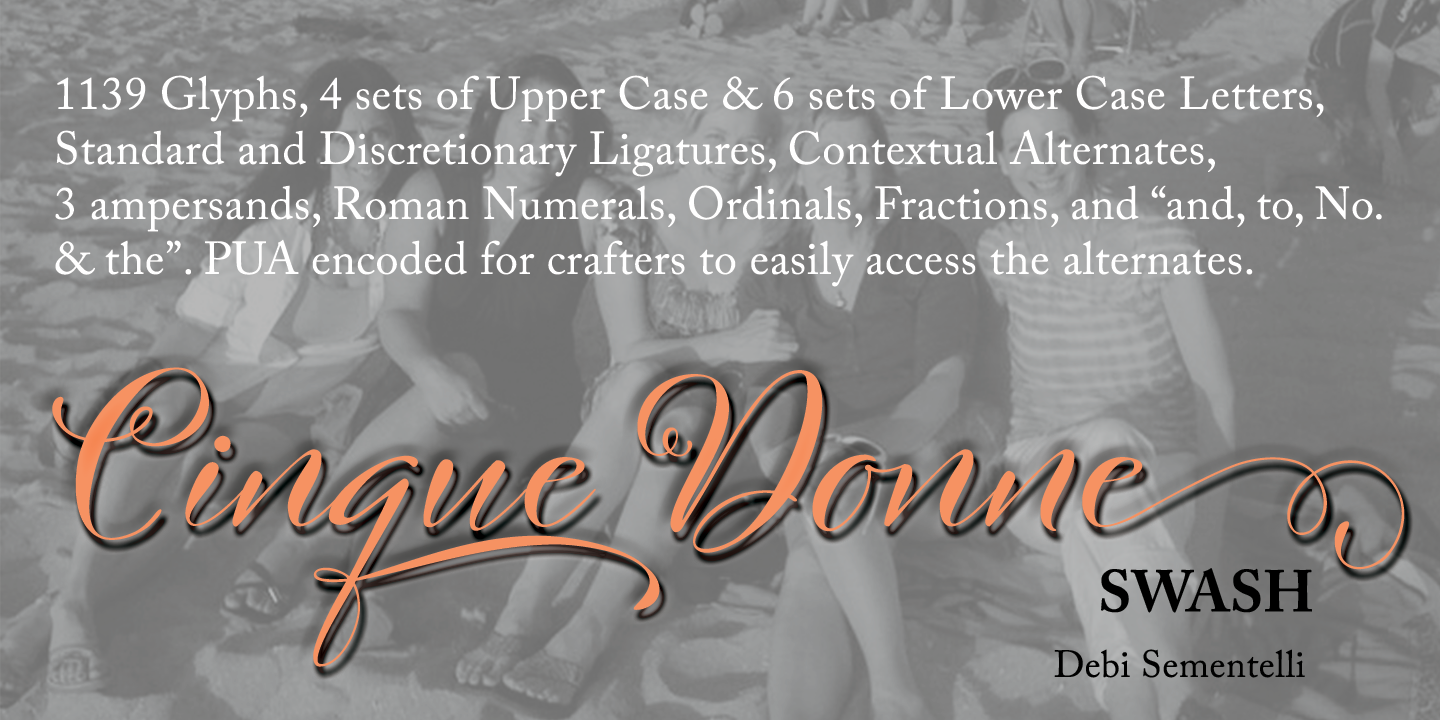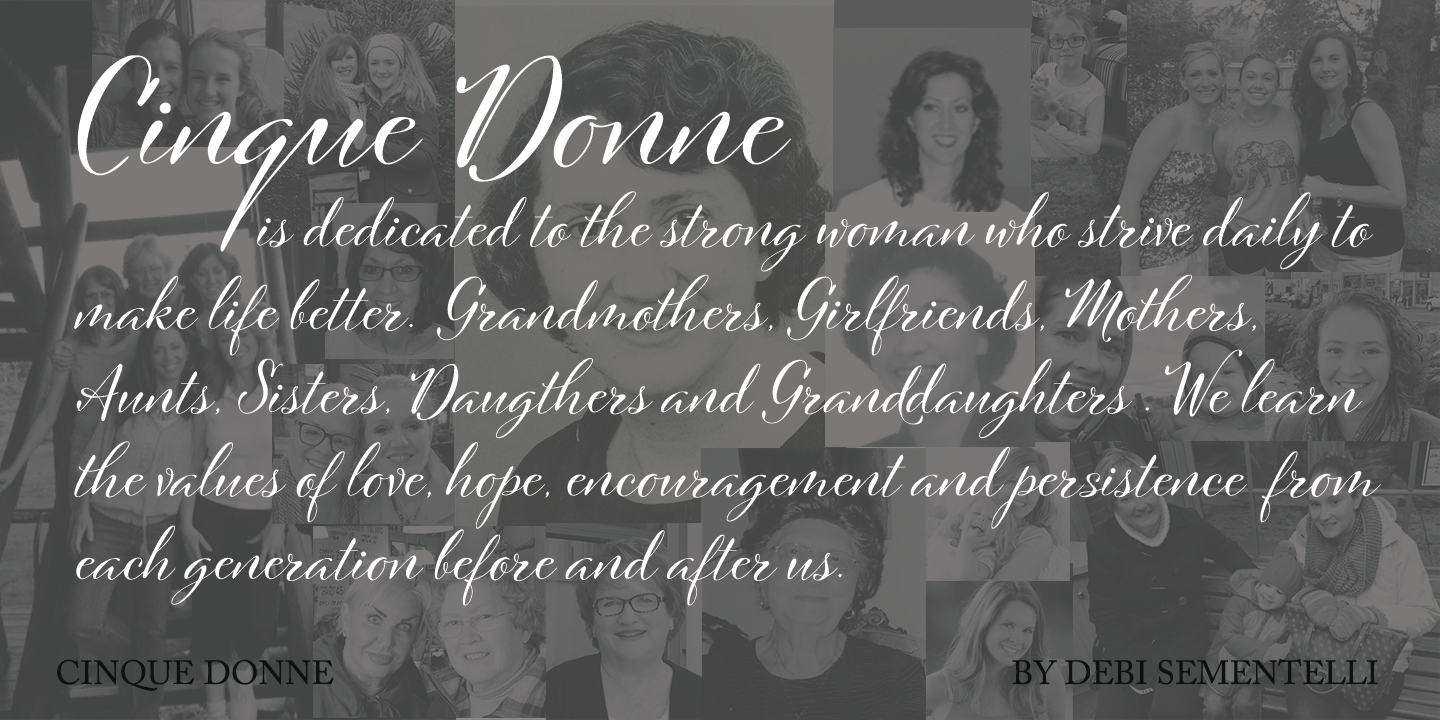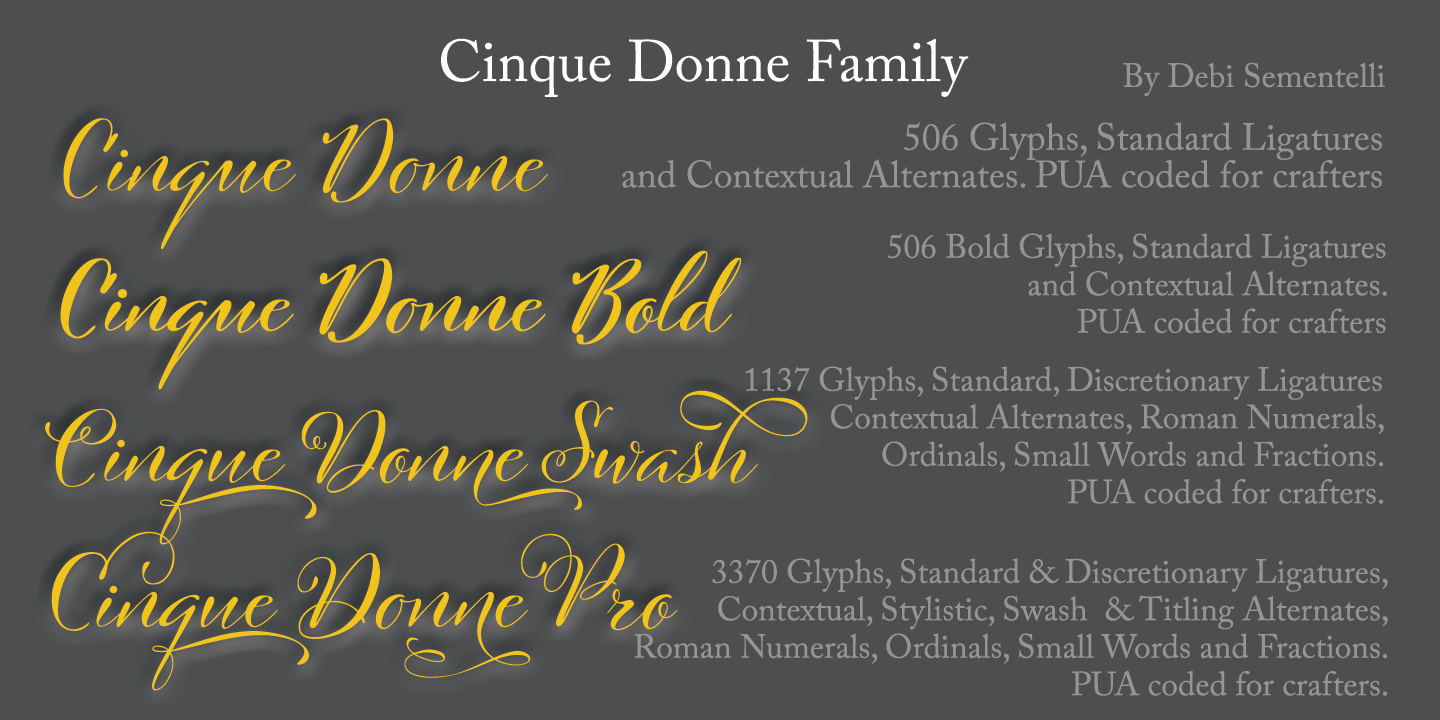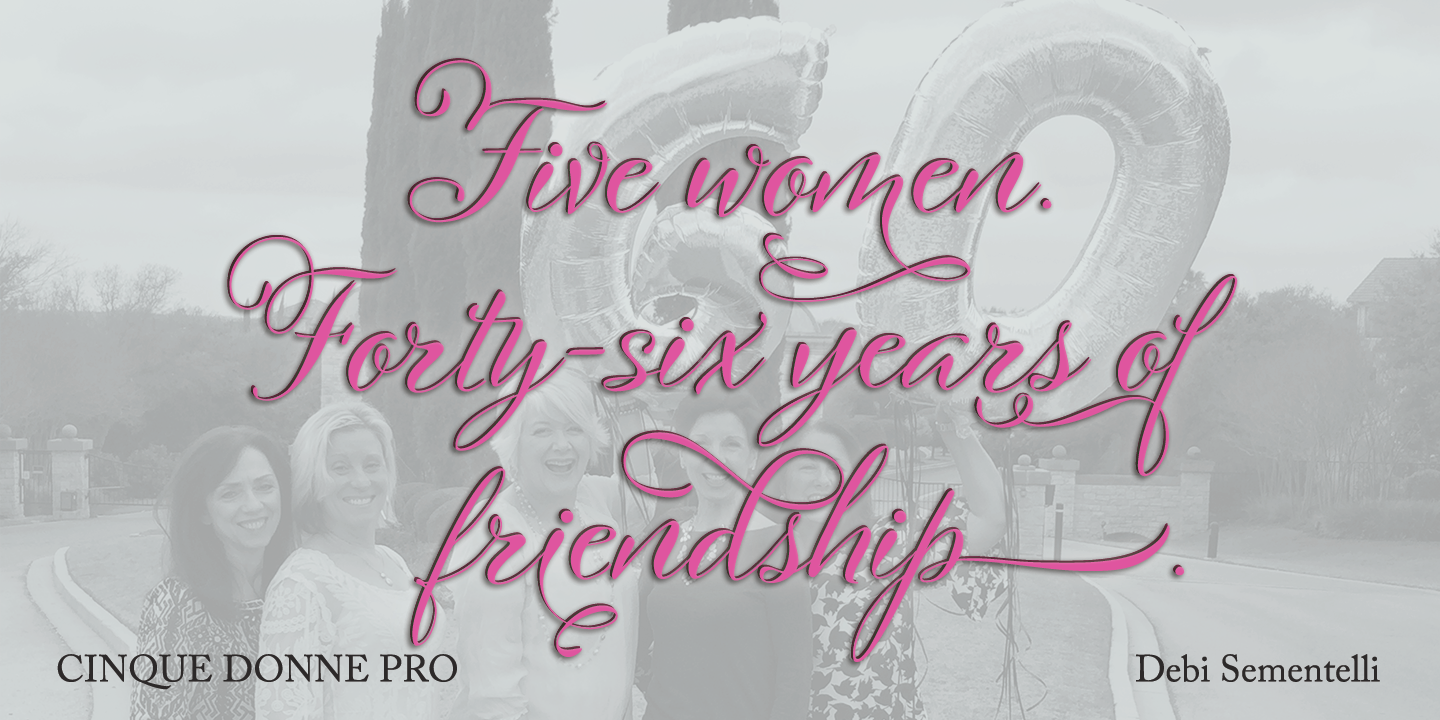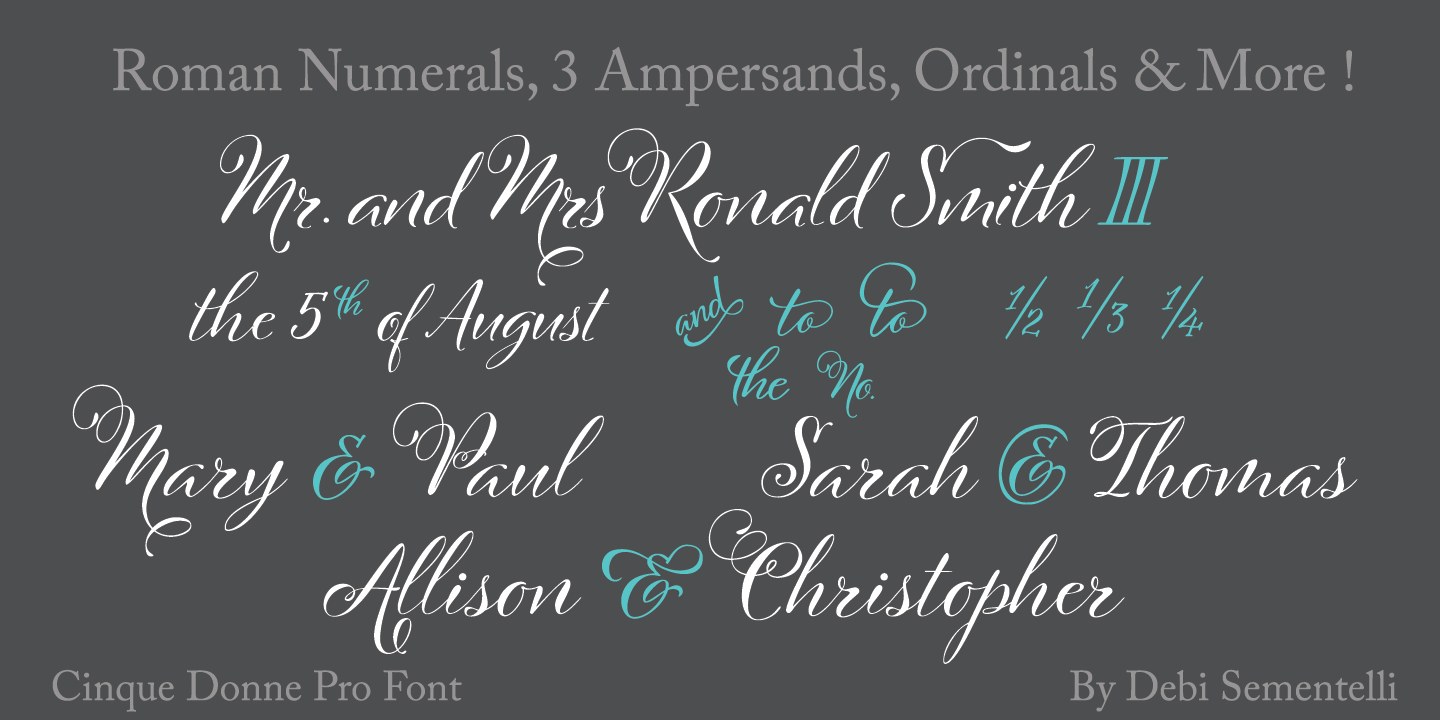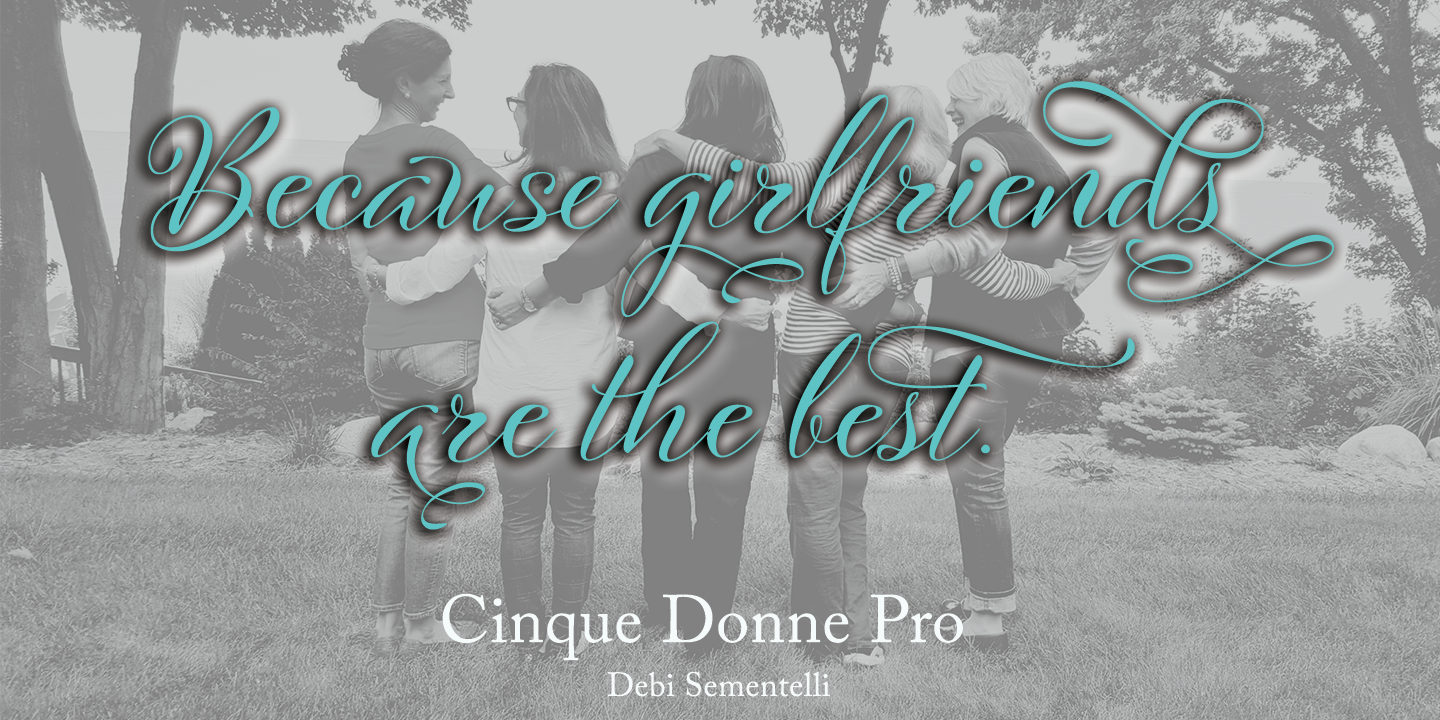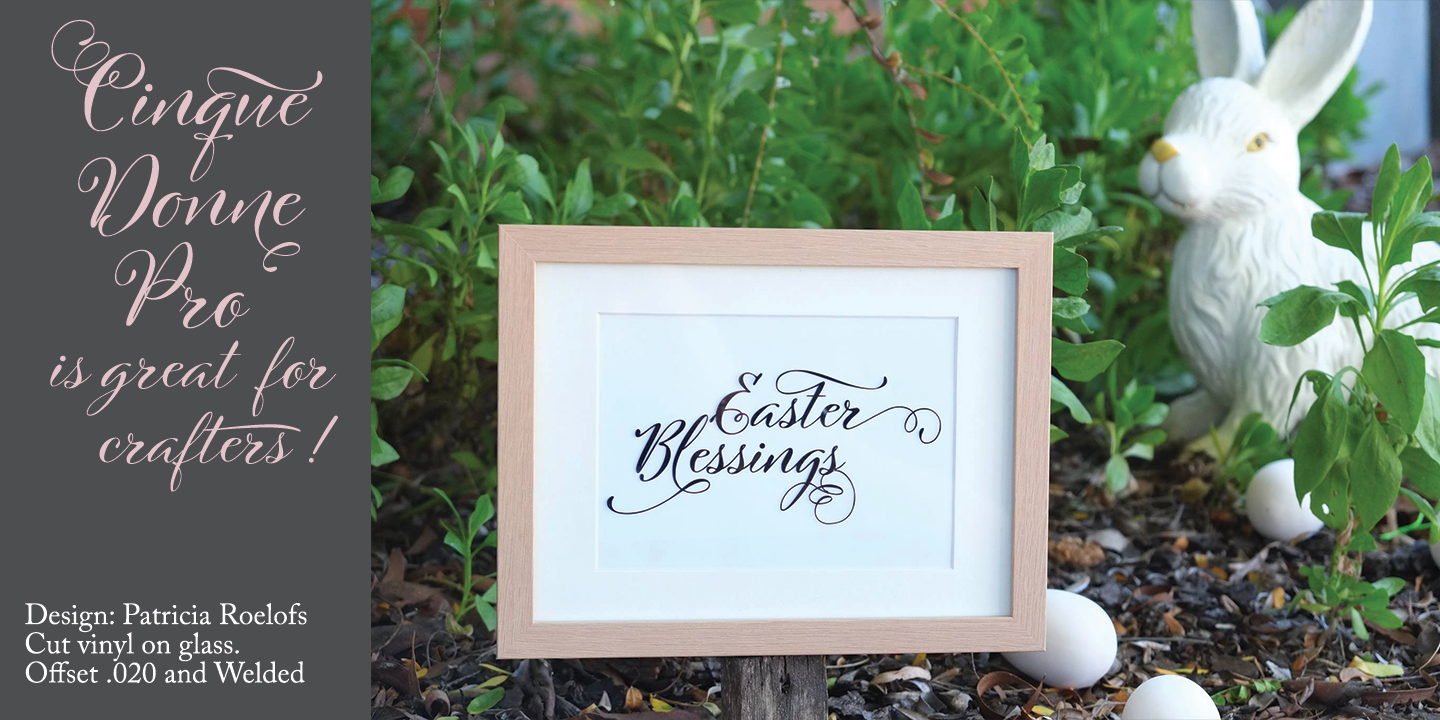
Cinque Donne Family (4 fonts)
Women are connectors, encouragers and supporters. Young, old, shy, extroverted, when you put us together, somehow we make a beautiful impact on each other’s lives. This is what Cinque Donne does in a visual way.
Some letters are simple and prefer to sit quietly. Others are flourished and proud and like the limelight in the middle of a word. And then there are alternates that are flexible and work in any number of surprising places. Stylistic sets can add a vivacious feel while contextual alternates bring better understanding. Classic or contemporary, subdued or flamboyant, these letters represent the variety of women that make life interesting for us all. Within the varied glyphs, I hope you find characters that remind you of the special women in your life. Let Cinque Donne salute them on the page!
The Cinque Donne Family includes: Cinque Donne, Cinque Donne Bold, Cinque Donne Swash and Cinque Donne Pro.